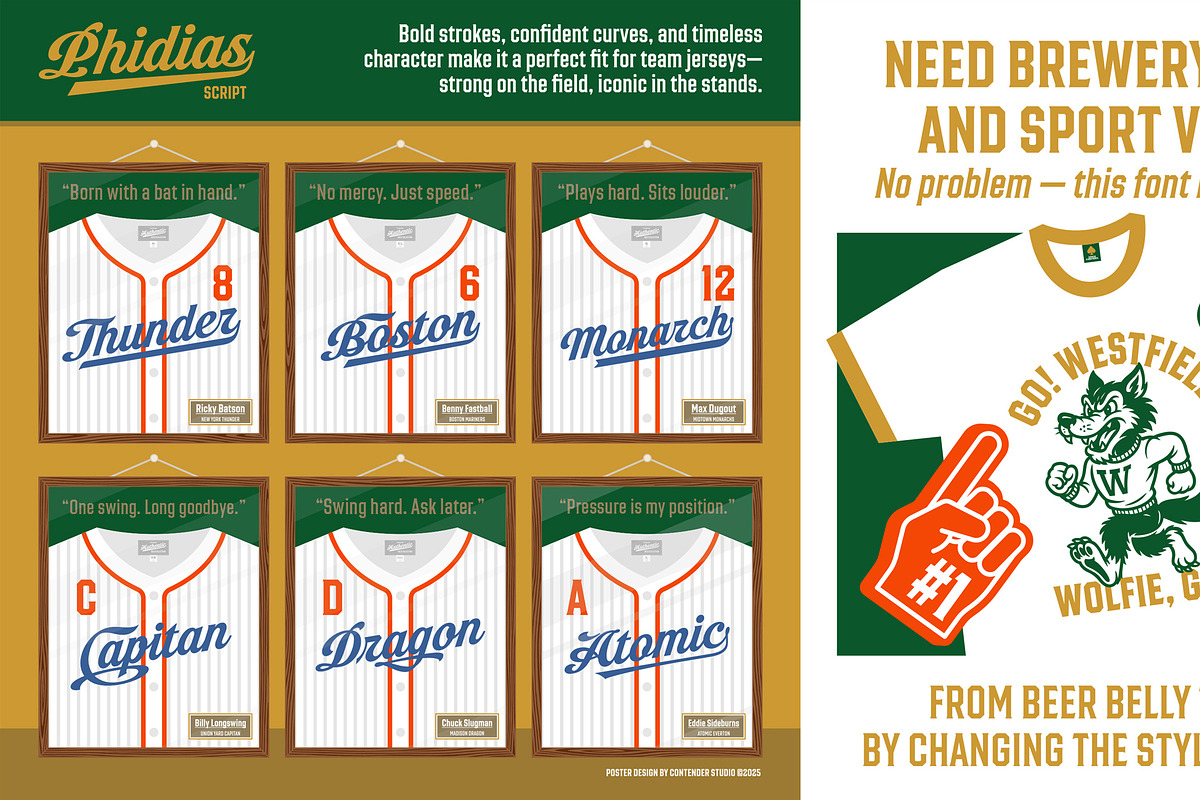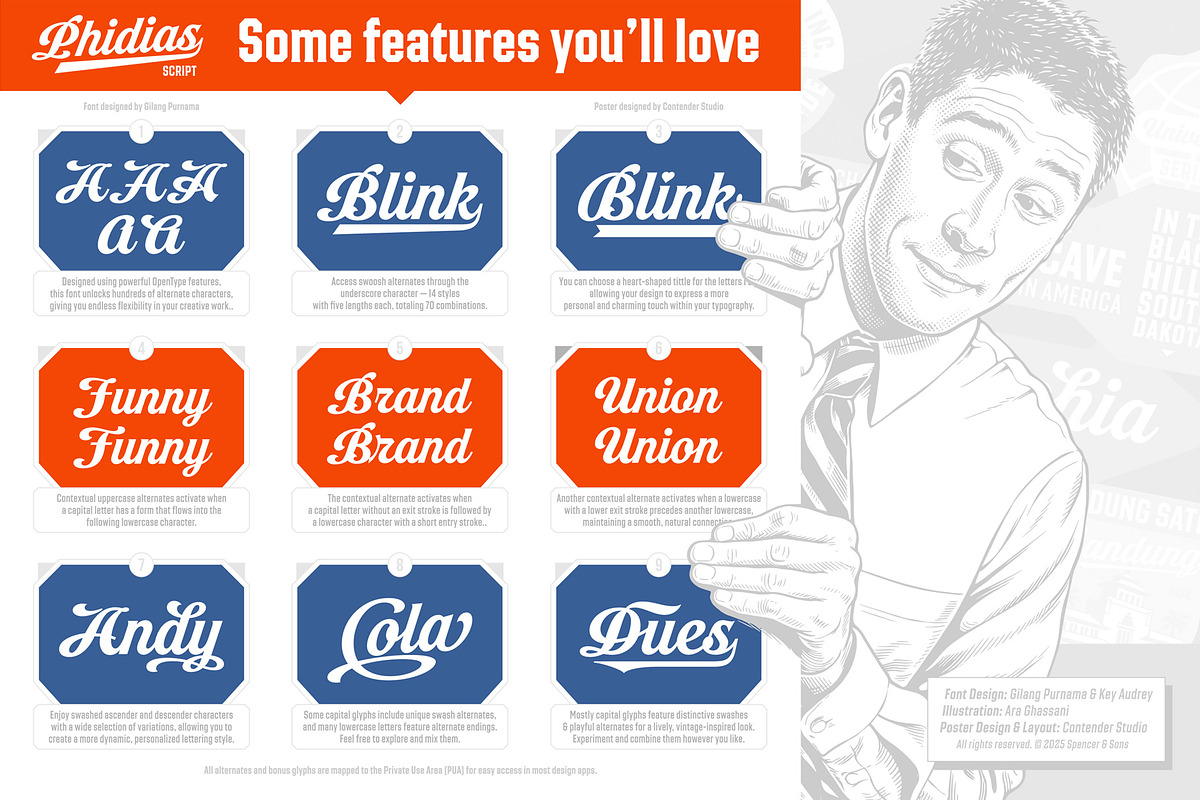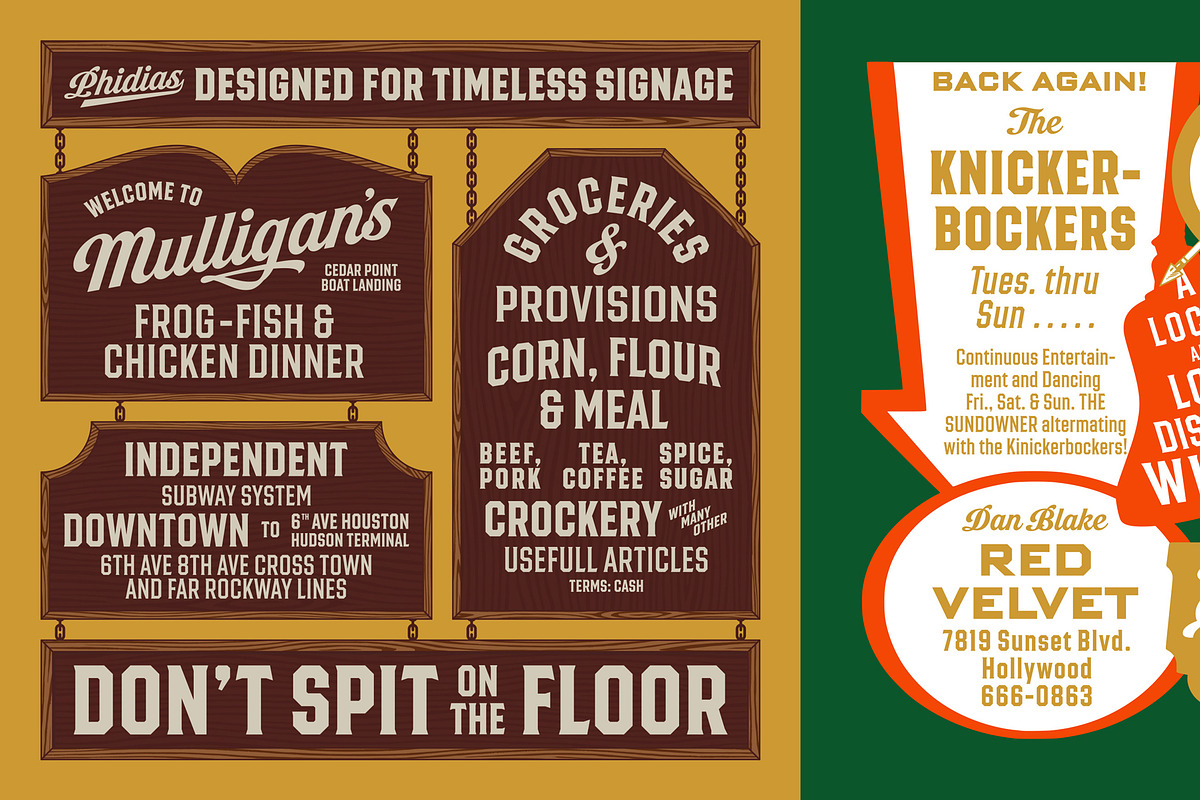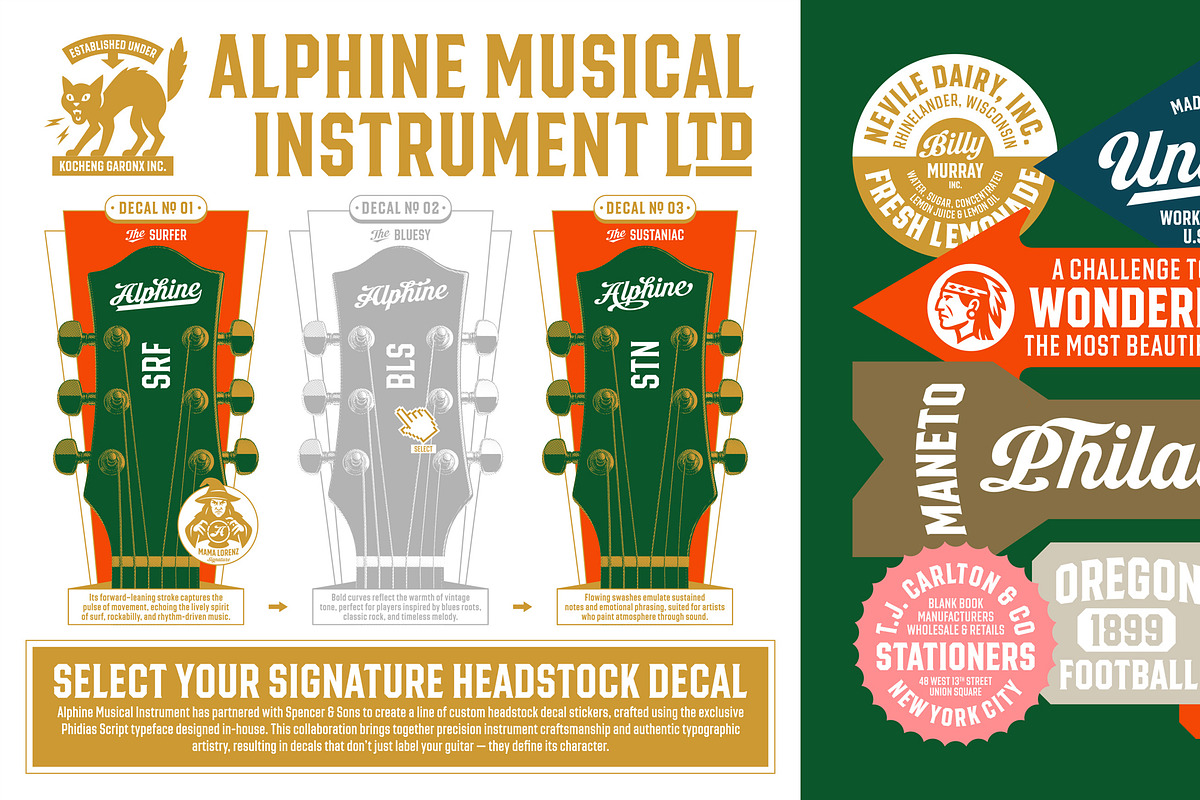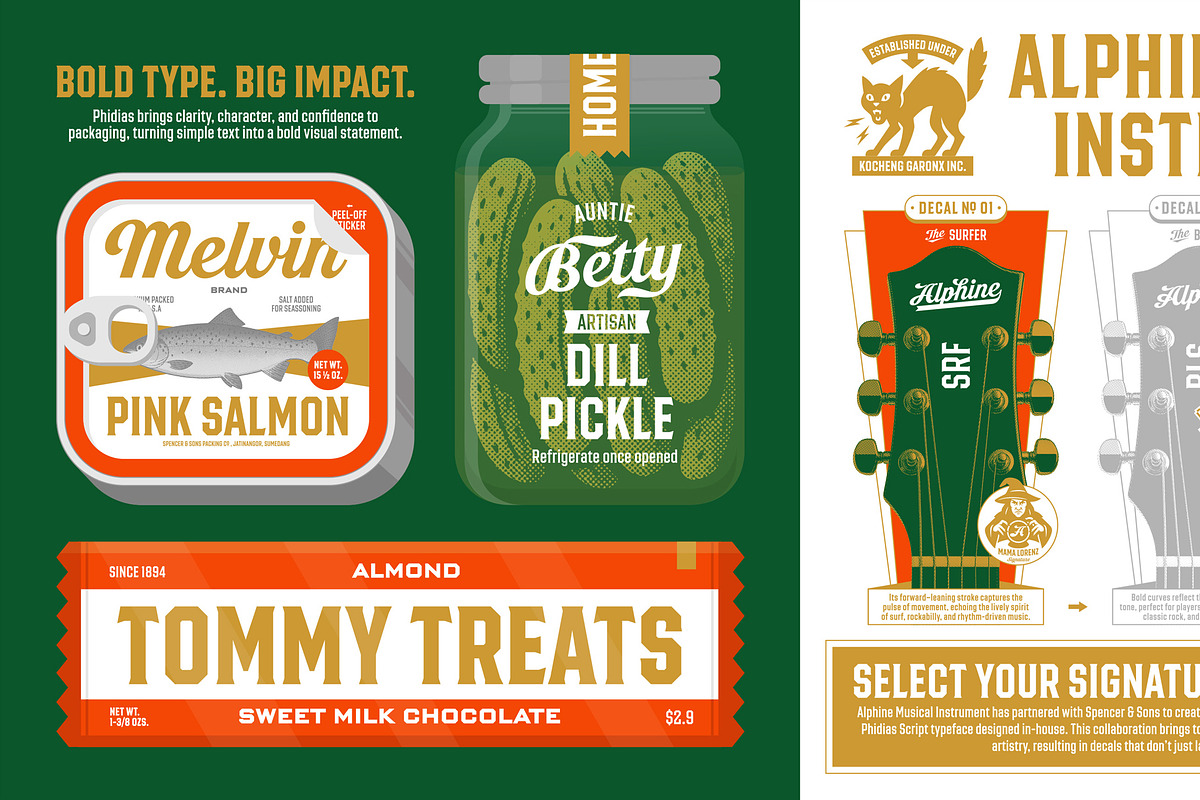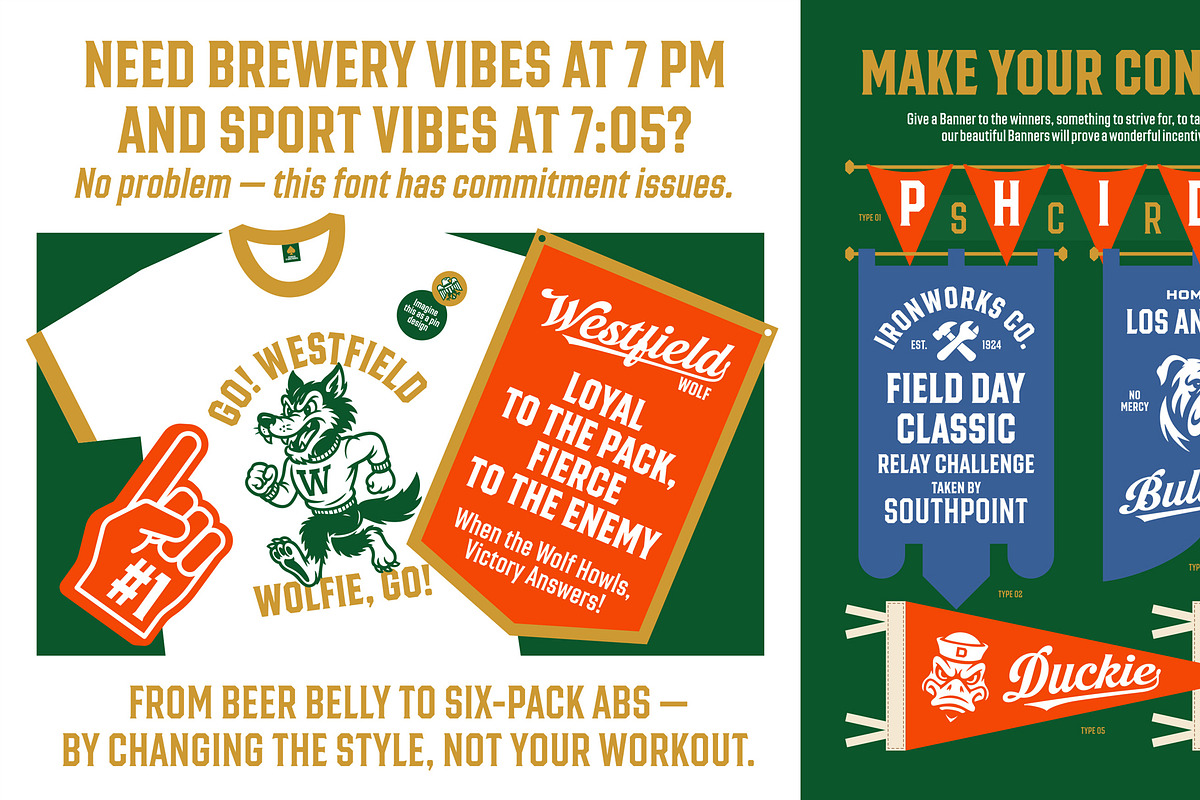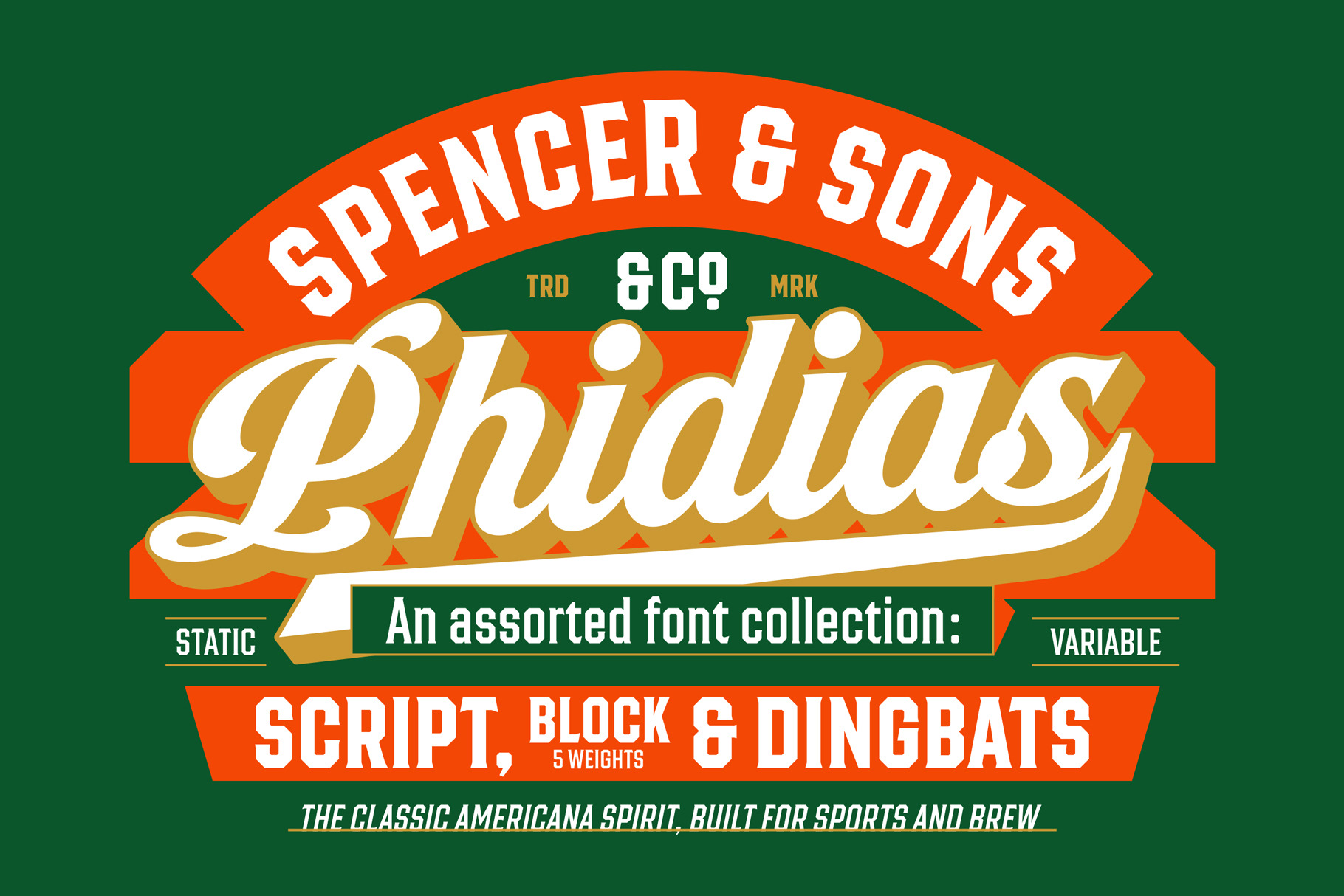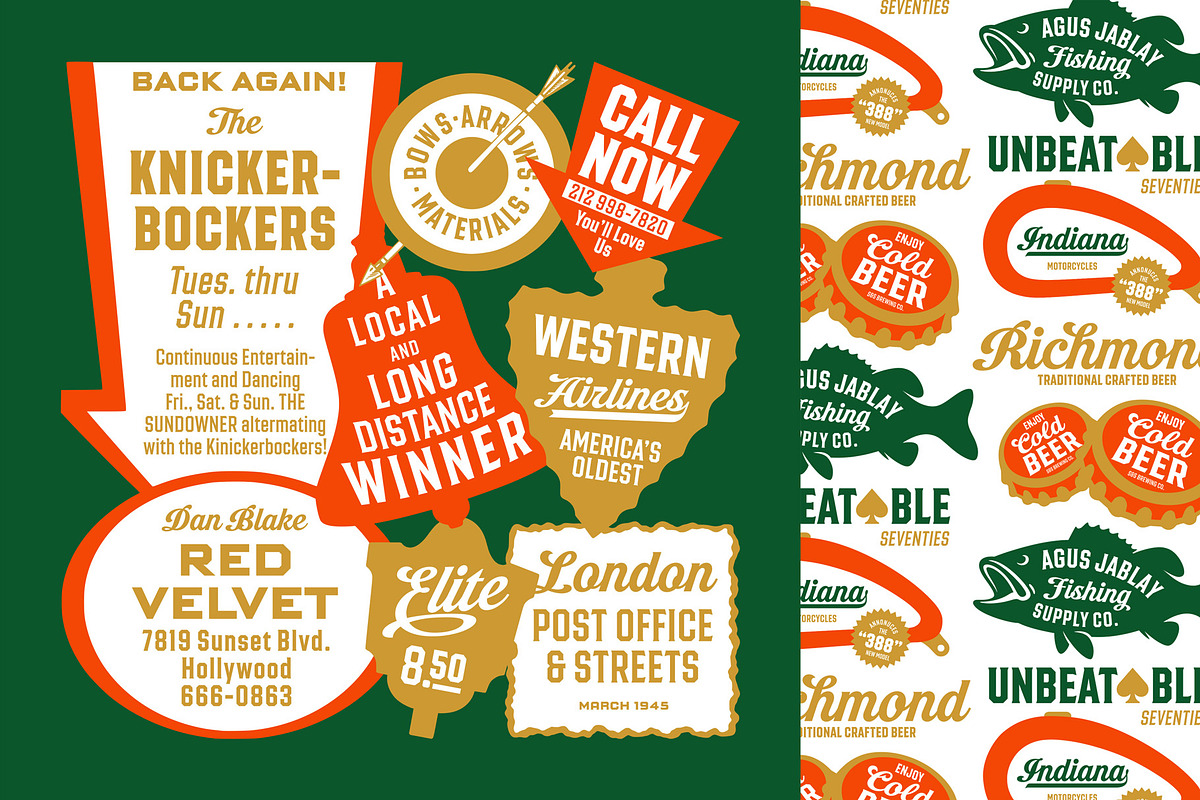
Phidias Font Collection
Bring vintage baseball energy and heritage beer branding into your next design—without getting stuck in one style. Phidias is a highly versatile font bundle built for logo design, brand identity, packaging, labels, badges, apparel/merch, posters, and social graphics. At the heart of the set is Phidias Script: a classic, confident script made for iconic baseball logos, beer labels, and premium retro branding. Pair it with Phidias Block to add structure and punch—perfect for complete logo lockups and headline systems. If you’re looking for a baseball script font, a beer logo font, or a vintage script + block pairing that works across modern projects, Phidias is made for you.
Phidias Script (OTF) 380 alternate characters (swashes, swooshes, stylistic alternates, ligatures, contextual alternates) + PUA encoded for quick access in most design apps.
Phidias Block Family 5 weights + 1 Variable Font (flexible weight control for branding systems)
Phidias Animal Kingdom Dingbats 100 animal glyphs, organized A–Z (perfect for badges, labels, packaging icons, and playful branding)
Perfect for: logo designers, brand identity, craft beer packaging, vintage sports branding, retro labels, apparel graphics, and bold headline typography.